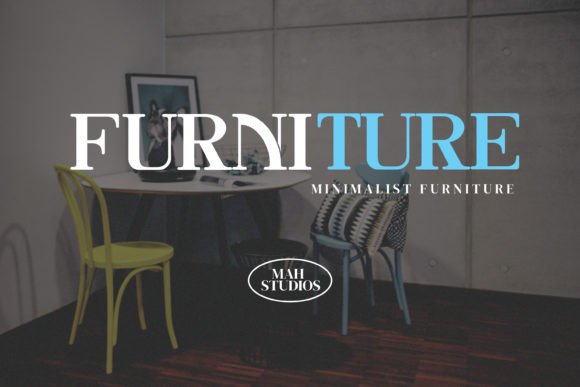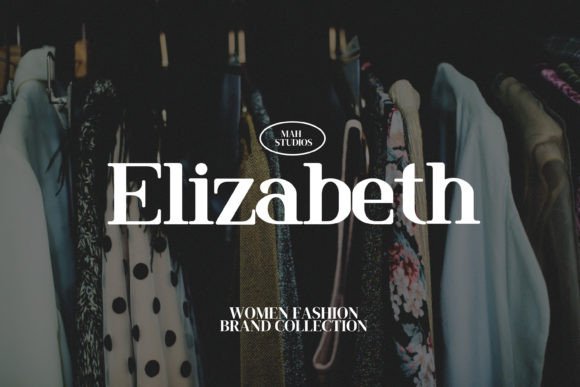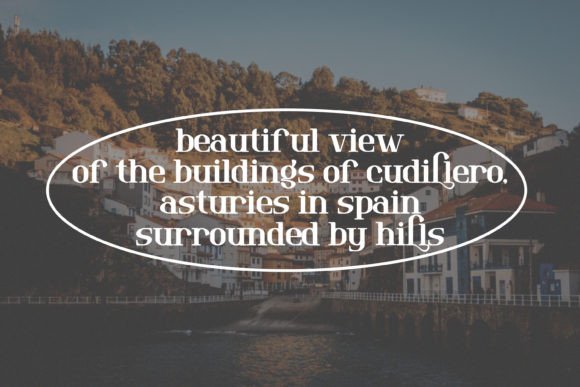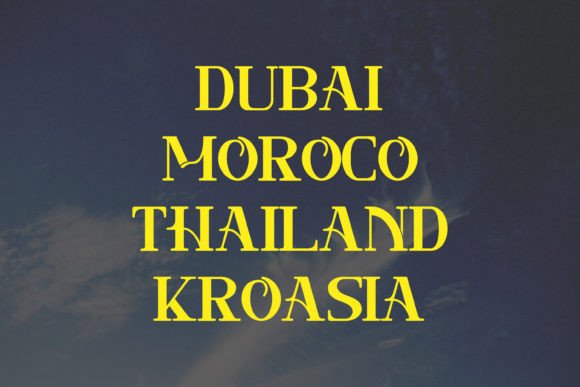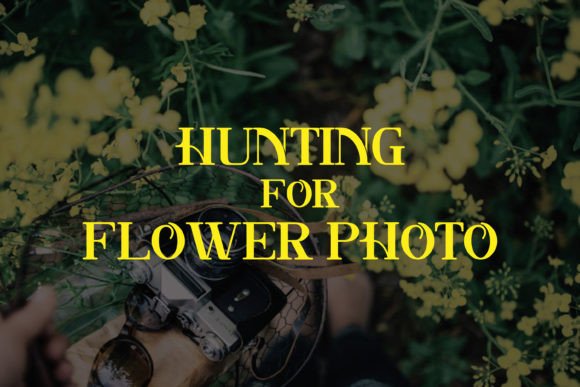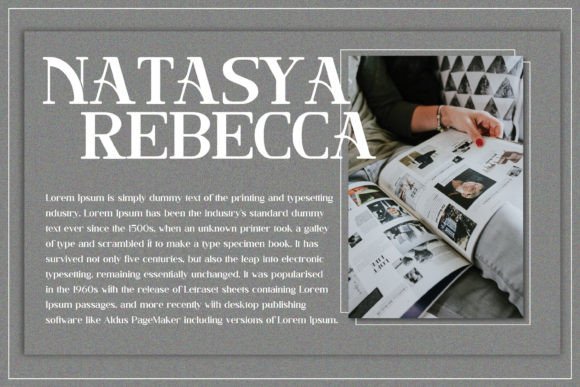
Discover the Elegance of Anapon Font: Elevate Your Designs with a Modern Serif Classic
In the vast universe of typography, finding the perfect font that combines elegance, modernity, and versatility can be a daunting task. However, for those in pursuit of a typeface that embodies sophistication while maintaining a fresh and contemporary vibe, look no further than the Anapon Font. This cool and modern serif font is meticulously designed to capture the hearts of designers and crafters alike, promising to elevate your projects to unprecedented heights.
The Essence of Anapon Font
Anapon Font strikes a perfect balance between classic influences and modern sensibilities. Its serif design pays homage to traditional typography, offering a sense of timelessness and reliability. Meanwhile, its contemporary twists ensure it feels fresh and relevant, suitable for a wide array of applications, from editorial designs to branding and packaging.
Key Features of Anapon Font
- PUA Encoding: One of the standout features of Anapon Font is its PUA (Private Use Area) encoding. This means that users can easily access all the glyphs and ligatures, providing a seamless and efficient design experience. No more tedious searching for the right character; with Anapon, everything you need is at your fingertips.
- Classy and Contemporary: Anapon’s design is not just about aesthetics; it’s about versatility. Whether you’re working on a luxury brand campaign, a fashion editorial, or a personal project, this font adapts effortlessly, lending a touch of sophistication and elegance.
- Wide Range of Applications: From digital platforms to print media, Anapon Font is incredibly versatile. Its clear and readable design makes it suitable for body text, while its stylish appearance ensures it shines in headlines and titles.
Why Choose Anapon Font?
With an overwhelming number of fonts available today, what sets Anapon apart? The answer lies in its unique blend of classic serifs and modern flair, combined with practical features like PUA encoding. Here are a few reasons why Anapon Font should be your go-to choice for your next project:
- Time-Saving: Thanks to its PUA encoding, you can access a wide range of glyphs and ligatures without any hassle, significantly speeding up your design process.
- Stand Out: In a sea of generic fonts, Anapon offers a distinctive look that can help your project stand out. Its elegance and modernity ensure your designs are perceived with the seriousness and professionalism they deserve.
- Cross-Platform Compatibility: Anapon Font is designed to perform exceptionally well across various platforms and devices, ensuring your typography looks impeccable everywhere.
Tips for Using Anapon Font
To truly harness the potential of Anapon Font, consider the following tips:
- Mix and Match: Combine Anapon with sans-serif fonts for a dynamic contrast that captures attention.
- Play with Sizes: Utilize different font sizes to create visual hierarchies, making your content more digestible and engaging.
- Experiment with Ligatures: Take full advantage of Anapon’s ligatures to add a creative touch to your text.
Anapon Font is more than just a typeface; it’s a design companion that can elevate your projects to new heights. Its perfect blend of classic serifs and modern sensibilities, coupled with practical features like PUA encoding, makes it an invaluable asset for designers and crafters. Whether you’re aiming for elegance, modernity, or a bit of both, Anapon Font is poised to become your true favorite. So, fall in love with Anapon, and watch your designs transform into stunning works of art.